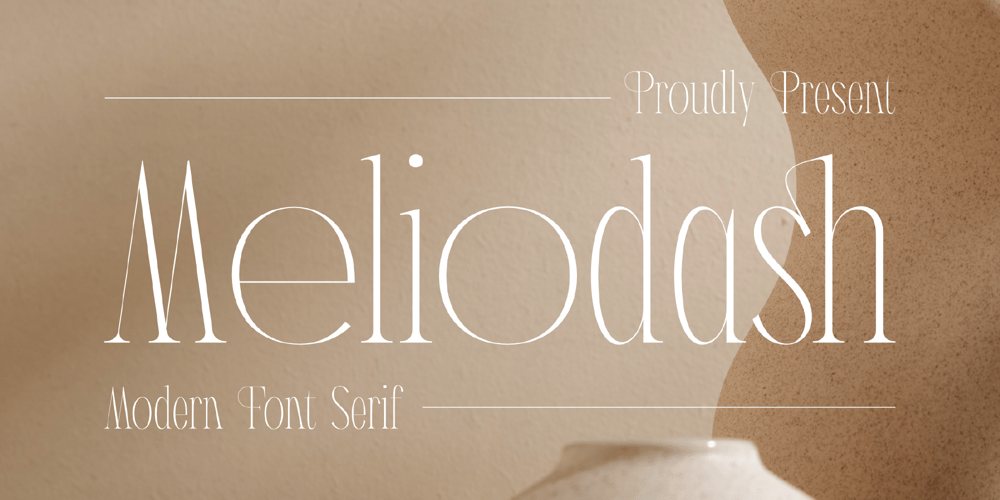
Meliodash
Meliodash font
Meliodash Font Family was designed by Heru Utama Putra and published by Letterena Studios. Meliodash contains 2 styles and family package options. Proudly present Meliodash Typeface.A serif modern and classic typeface that has its own unique style & modern look.This typeface is perfect for an elegant & luxury logo, book or movie title design, fashion brand, magazine, clothes, lettering, quotes, and so much more.This font is PUA encoded which means you can access all of the amazing glyphs and ligatures with ease!